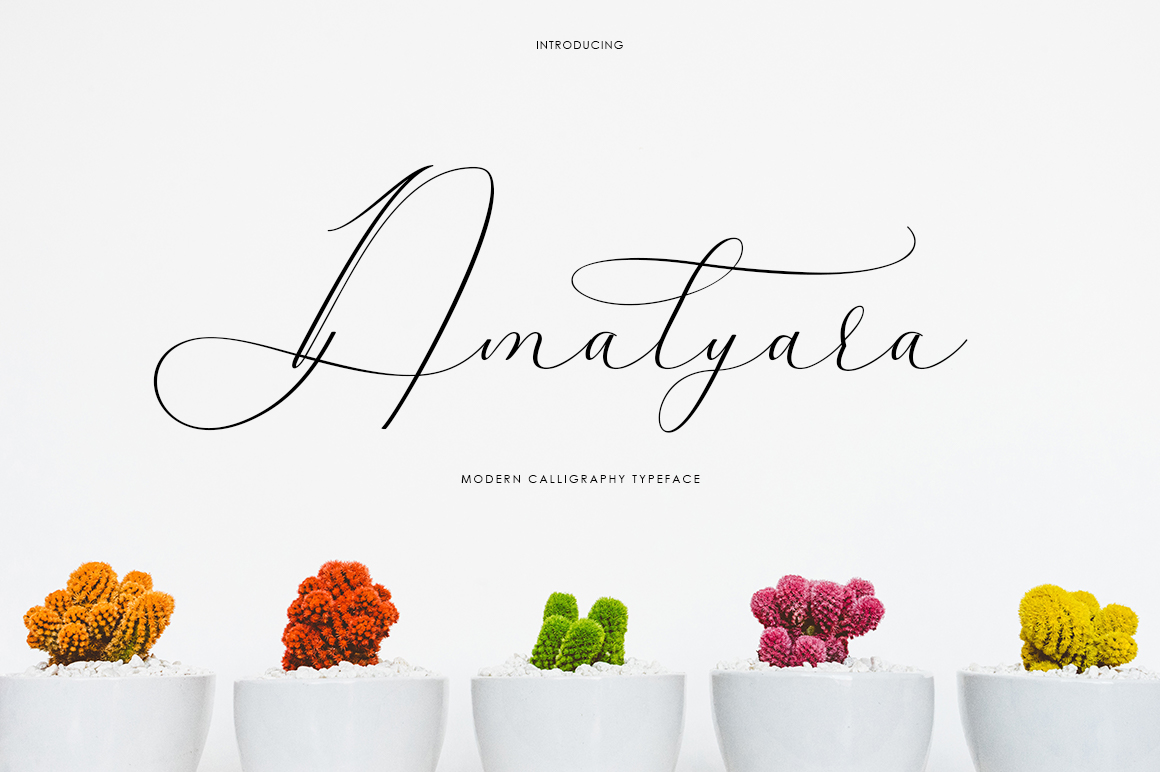
The Elusive Font: My Journey with Amalyara
I still remember the frustration of working on a project, pouring my heart and soul into every detail, only to hit a roadblock when it came to choosing the perfect font. My client wanted something elegant, something that would make their brand stand out, but not overpower it. I scoured the internet, tried out countless fonts, and yet, none seemed quite right. That was until I stumbled upon Amalyara, a beautiful, thin script font that has since become a staple in my design toolkit.
Amalyara: A First Impression
Amalyara is a gorgeous, delicate handwritten script font that demands attention. Its elegant strokes and flowing curves make it perfect for adding a touch of sophistication to any design project. Whether you’re working on a logo, a wedding invitation, or a brand identity, Amalyara is sure to impress.
What I Love About Amalyara ✨
- 💫 Elegant and sophisticated: Amalyara adds a touch of luxury to any design project.
- ✅ Highly legible: Despite its delicate nature, Amalyara is surprisingly easy to read, even at small sizes.
- 🌈 Versatile: Amalyara works well in a variety of contexts, from formal events to everyday branding.
- 💻 OpenType features: Amalyara supports a range of OpenType features, including ligatures, stylistic alternates, and glyphs.
- ⚠️ Limited use in body text: While Amalyara is beautiful, it’s not the best choice for long blocks of text due to its delicate nature.
- ⚠️ May not work well in all languages: Amalyara’s character set may not support all languages, so be sure to check compatibility before use.
The Story Behind Amalyara
Amalyara was designed by a talented type designer who wanted to create a font that would evoke the elegance and sophistication of handwritten calligraphy. Inspired by the flowing curves and delicate strokes of traditional calligraphy, Amalyara was born. Today, it’s a popular choice among designers and crafters who want to add a touch of luxury to their projects.
Q: What is Amalyara’s character set?
A: Amalyara’s character set includes a range of letters, numbers, and punctuation marks, as well as OpenType features such as ligatures and stylistic alternates.
Q: Is Amalyara suitable for body text?
A: While Amalyara is beautiful, it’s not the best choice for long blocks of text due to its delicate nature. It’s better suited for headlines, titles, and short paragraphs.